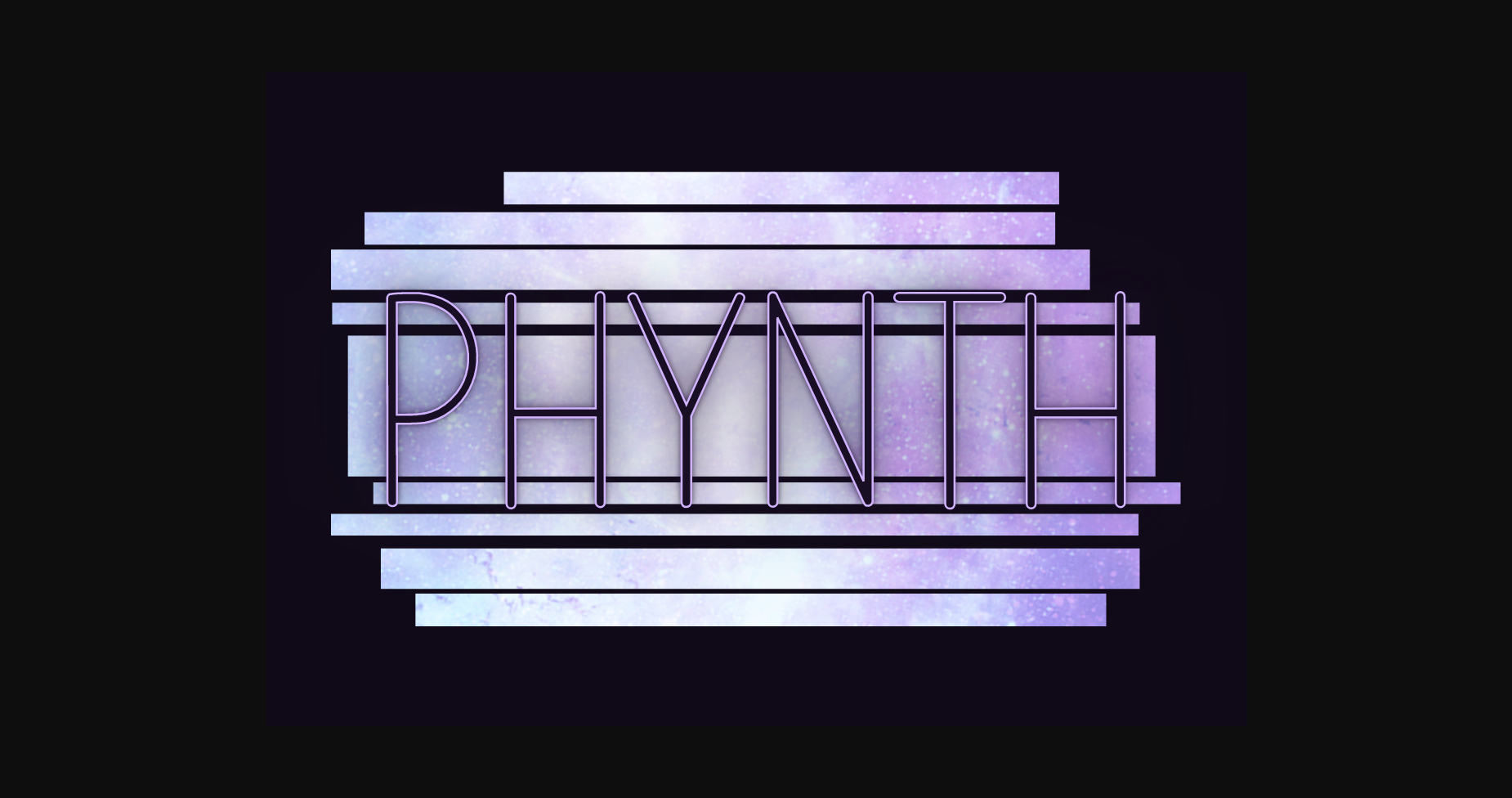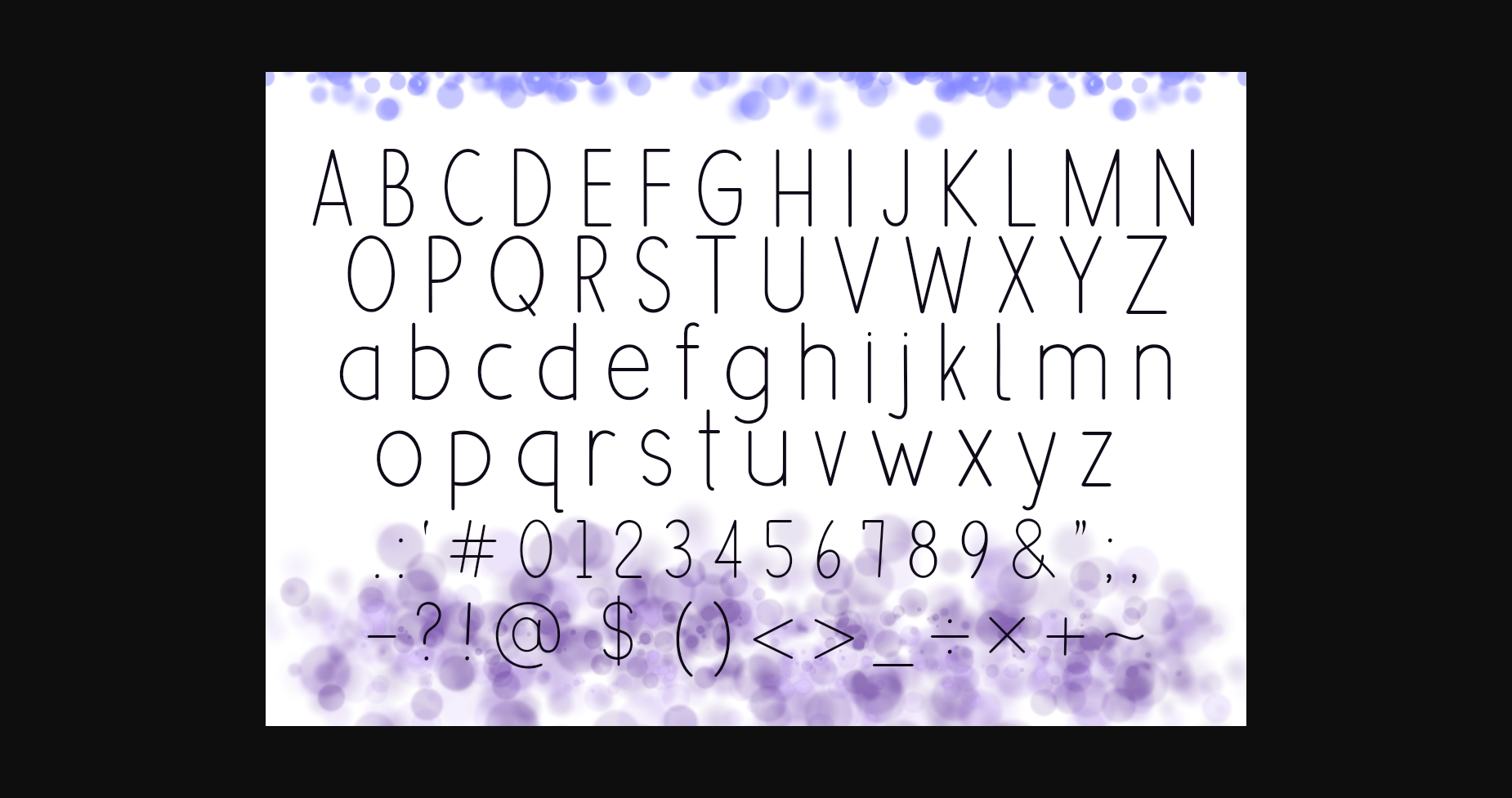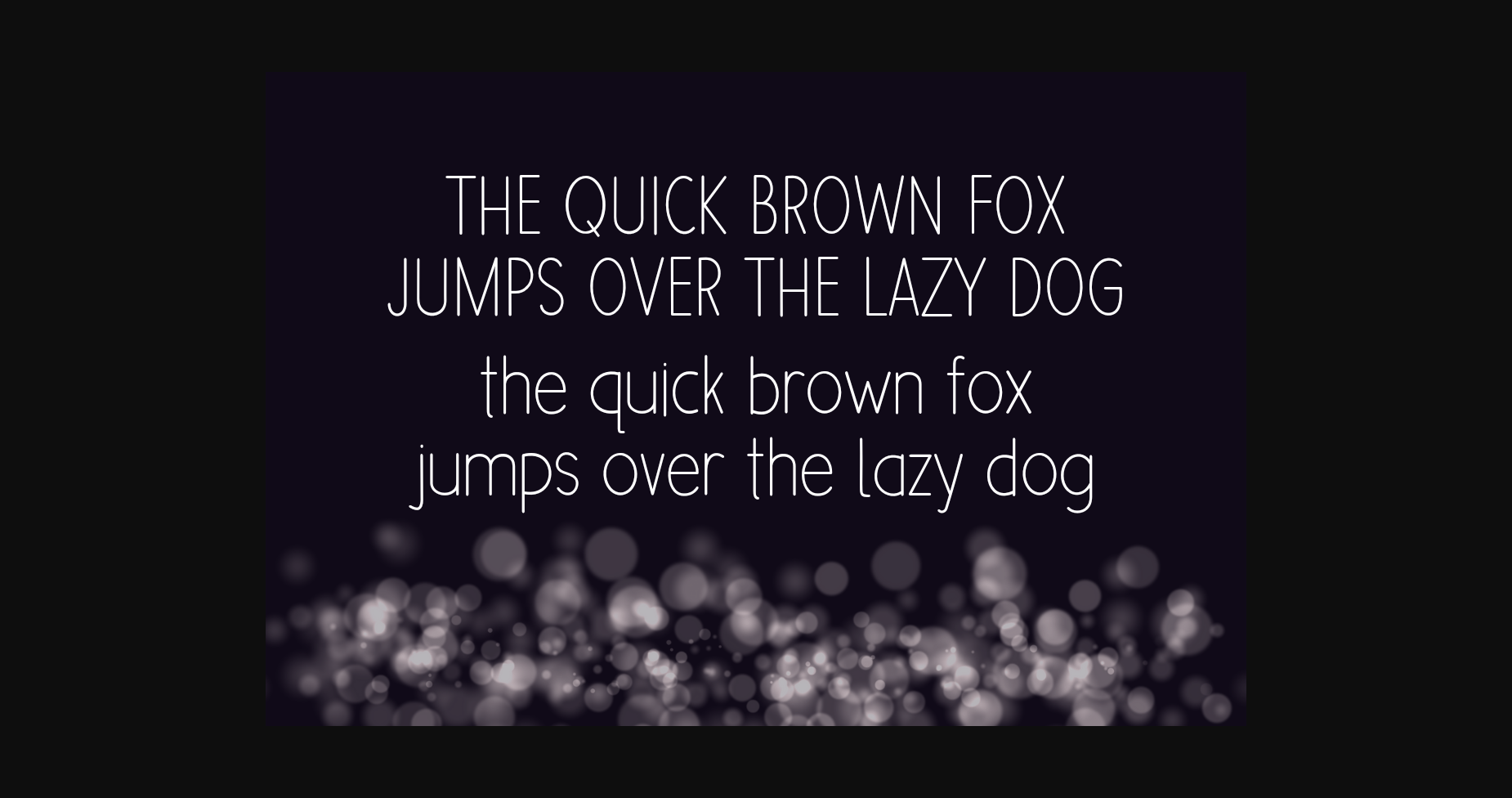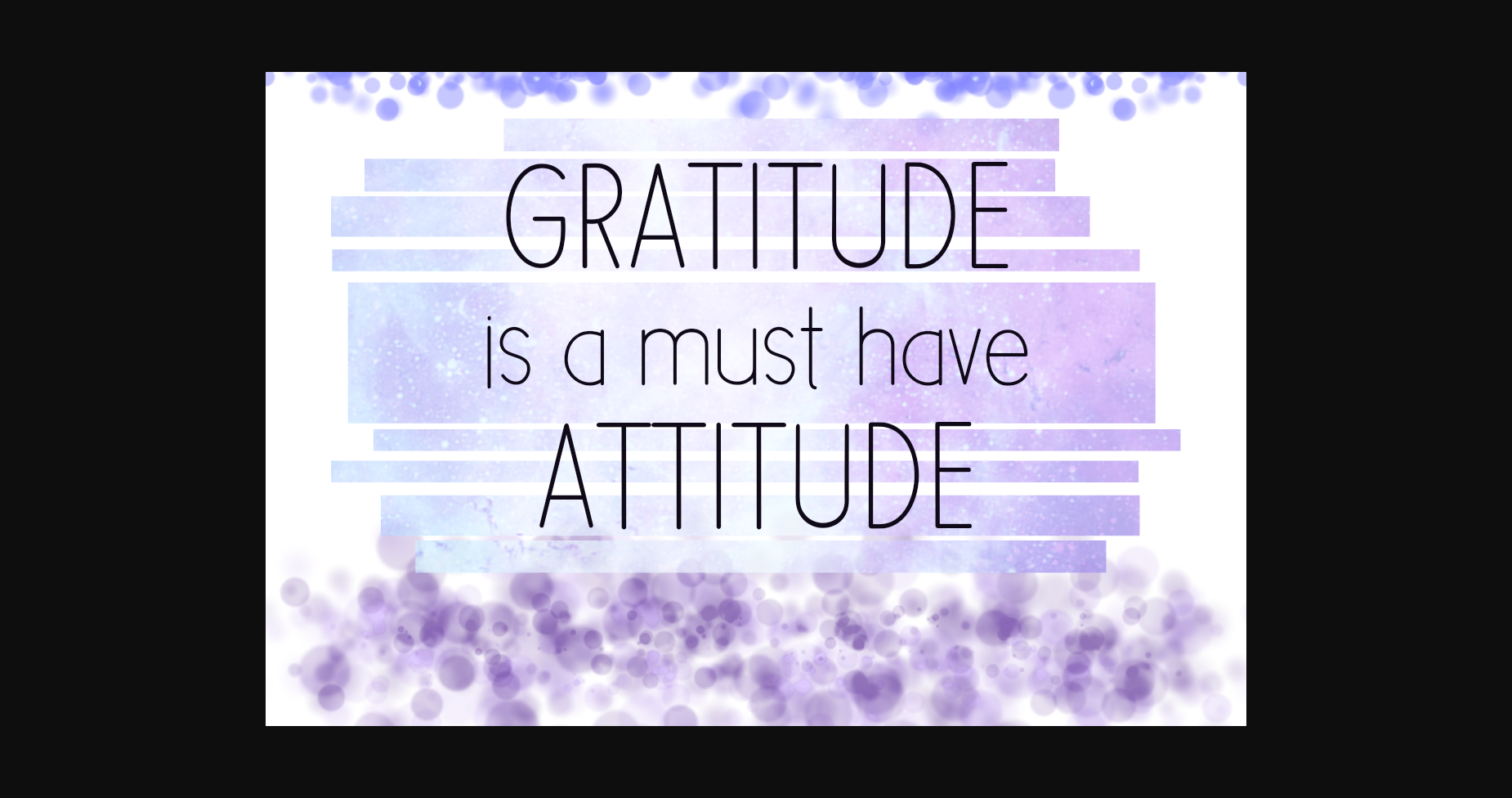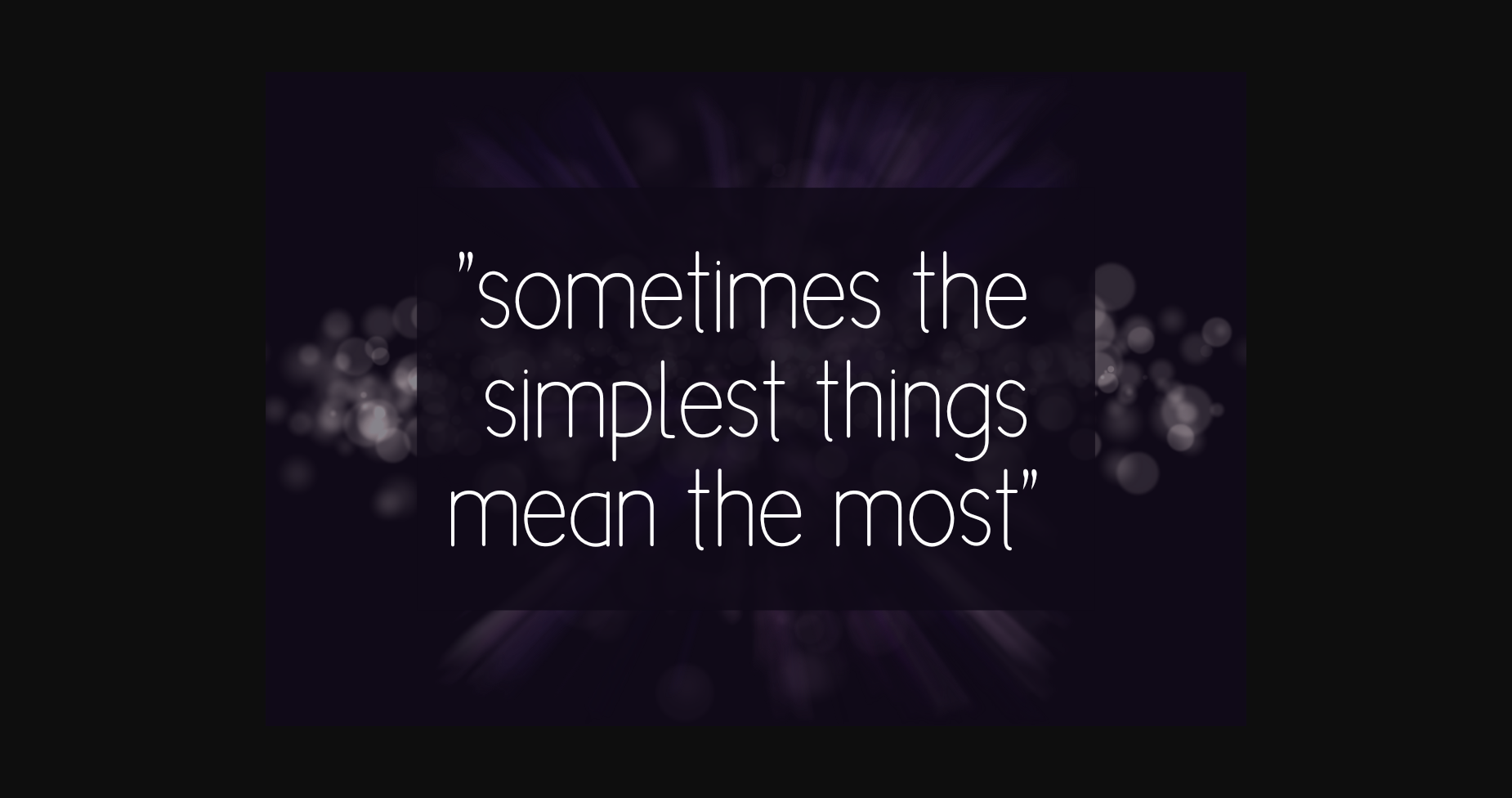
Phynth Font
About Phynth Font
Phynth is a clean and minimalist sans-serif font designed to bring clarity and simplicity to your written communication. Its sharp, geometric lines and uniform letterforms ensure legibility, while its understated style conveys a modern and sophisticated aesthetic. Perfect for branding, editorial, and digital projects.